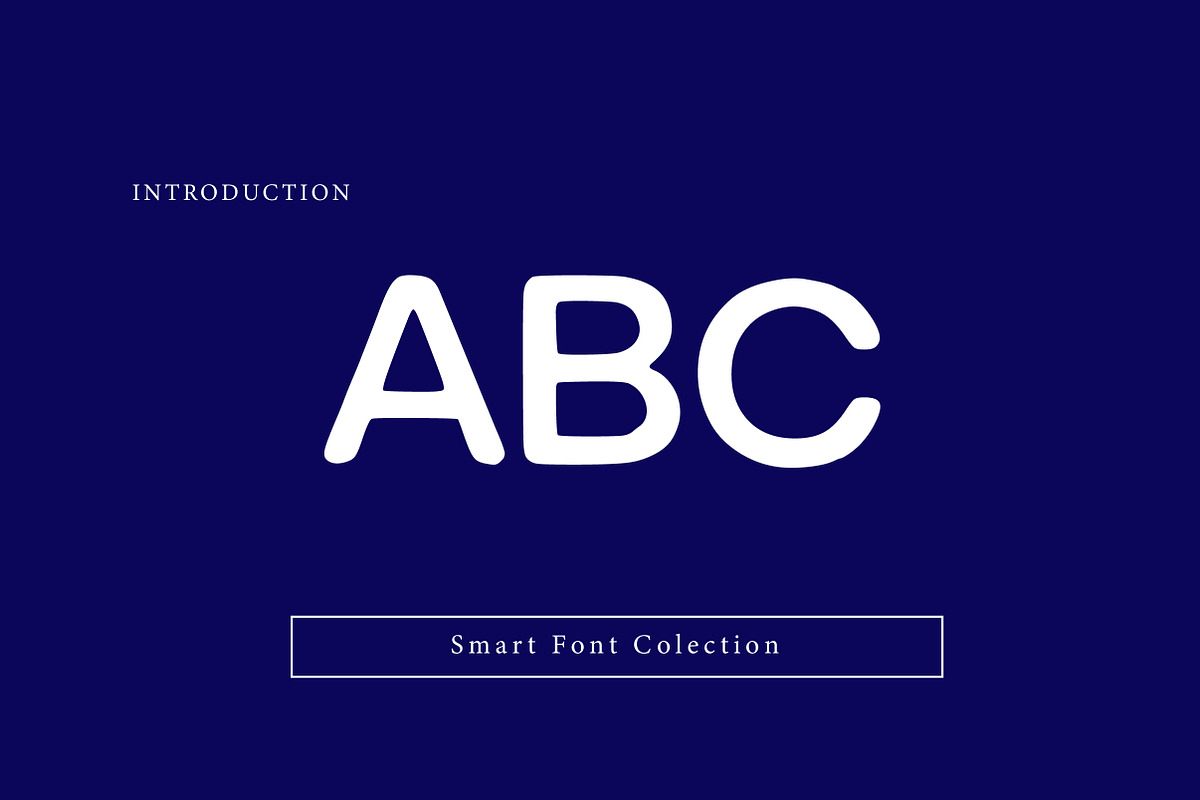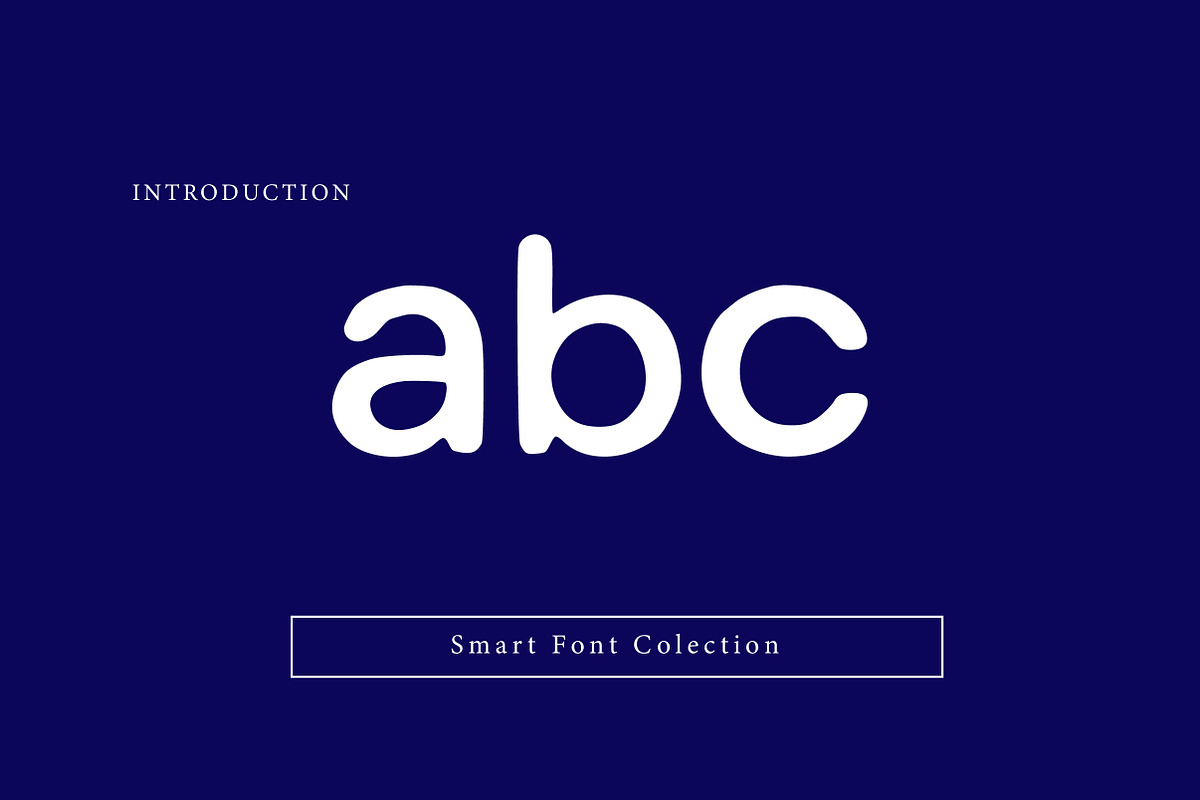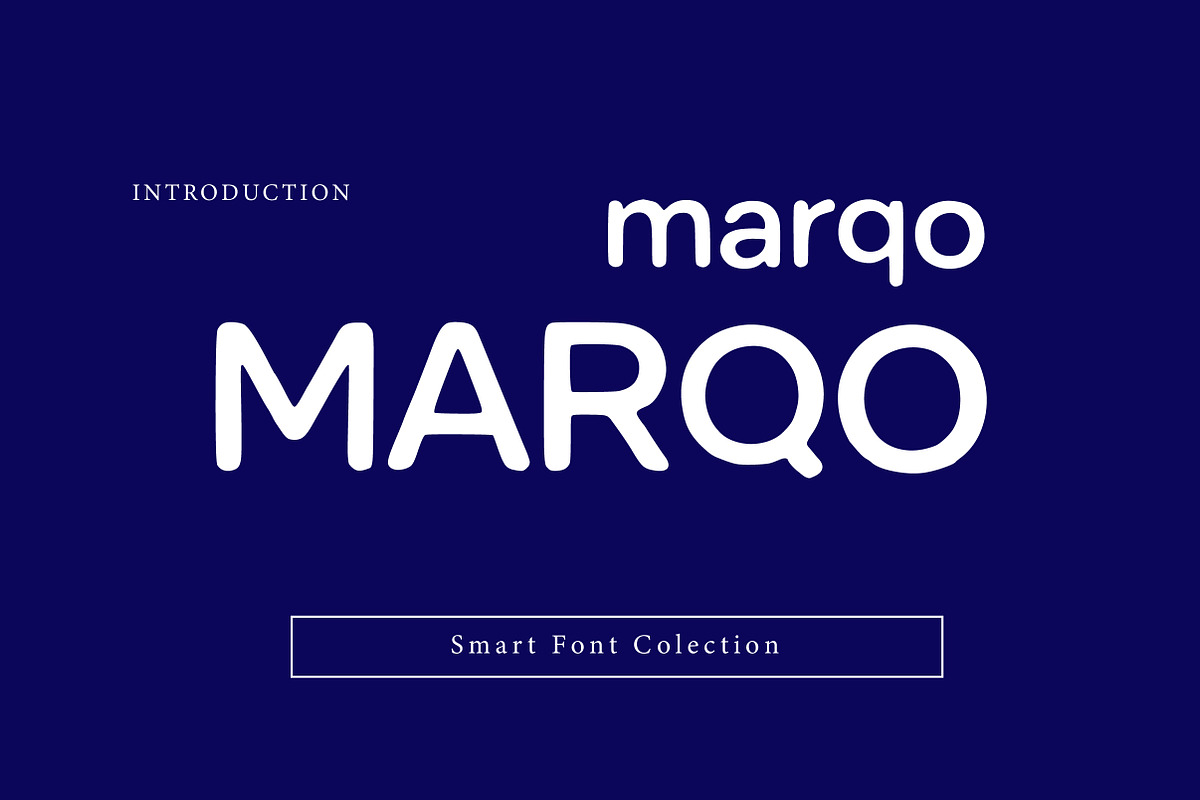
Marqo
Marqo is a playful and friendly handwritten font with rounded shapes and a natural pen-drawn feel. Perfect for kids designs, branding, social media graphics, packaging, posters, and creative projects that need a warm, casual, and approachable style. Marqo works beautifully in both digital and print designs, offering excellent readability with a fun personality.